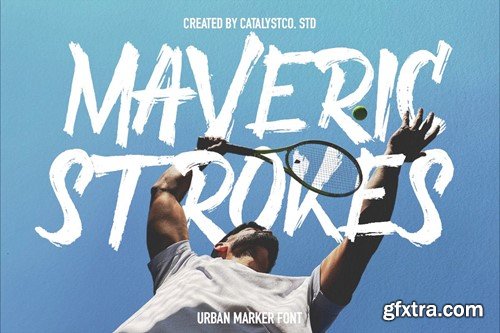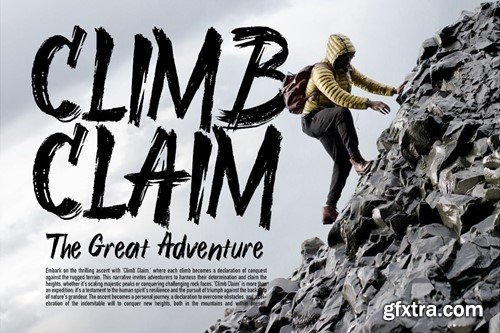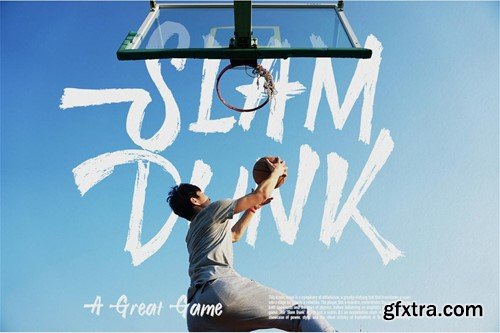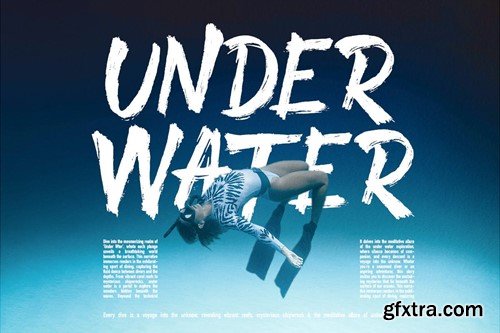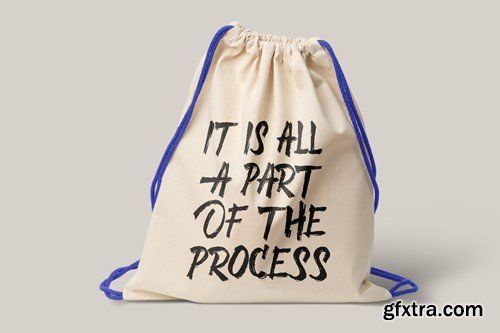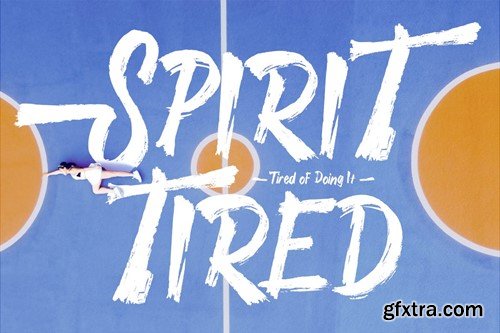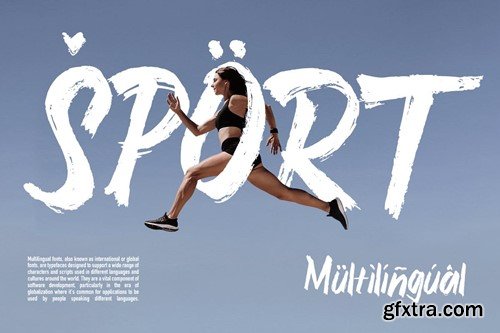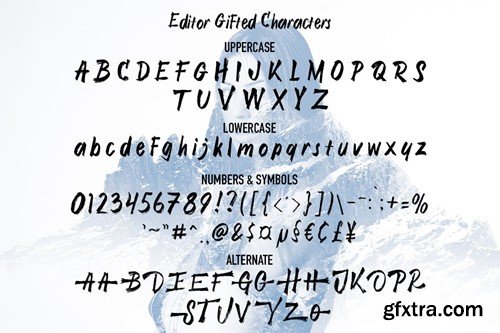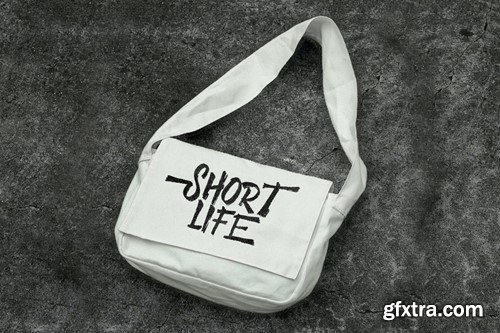
Maverick Stroke 城市标记字体 F4TTN2E
Maverick Stroke Urban Marker Font F4TTN2E
Maverick Stroke Urban Marker Font
Maverick Stroke Urban Marker Font typeface excellent used for the manufacture quote text, logotype, header magazine, t-shirt design and many more.
Main Features
• Uppercase & Lowercase
• Numeral & Punctuations
• Multilingual Support